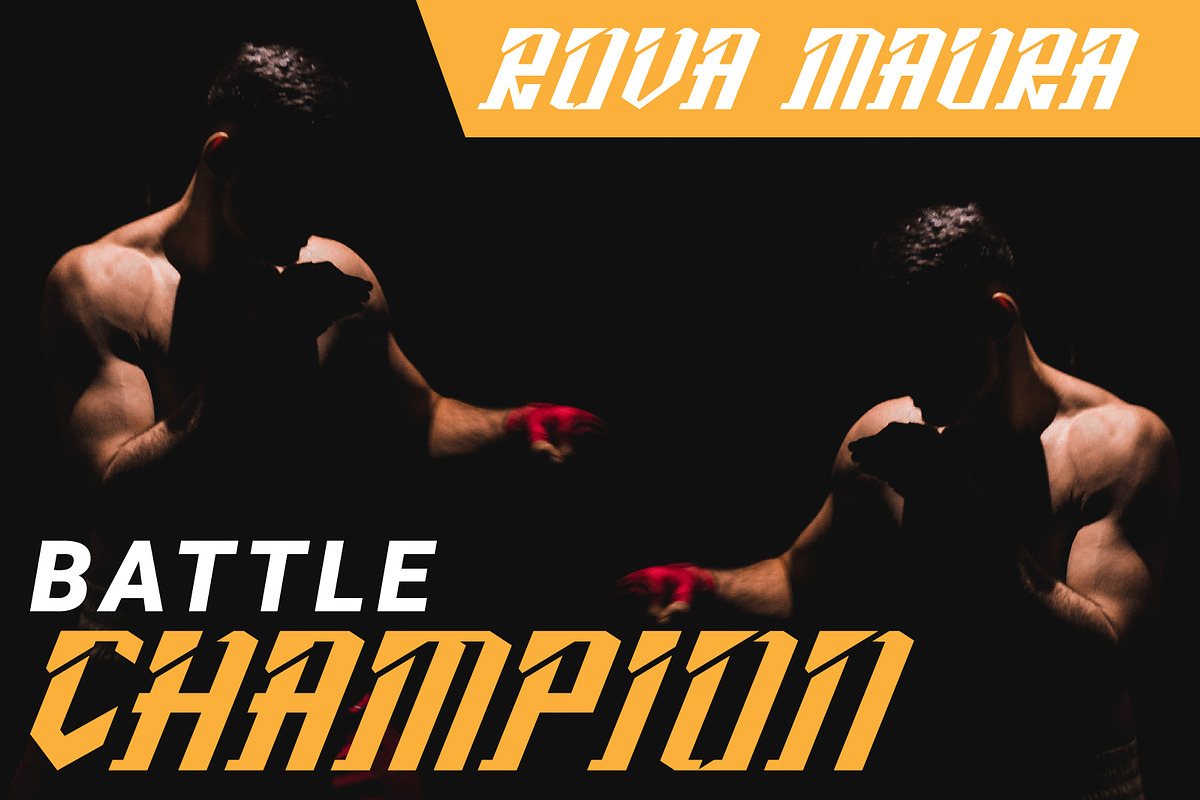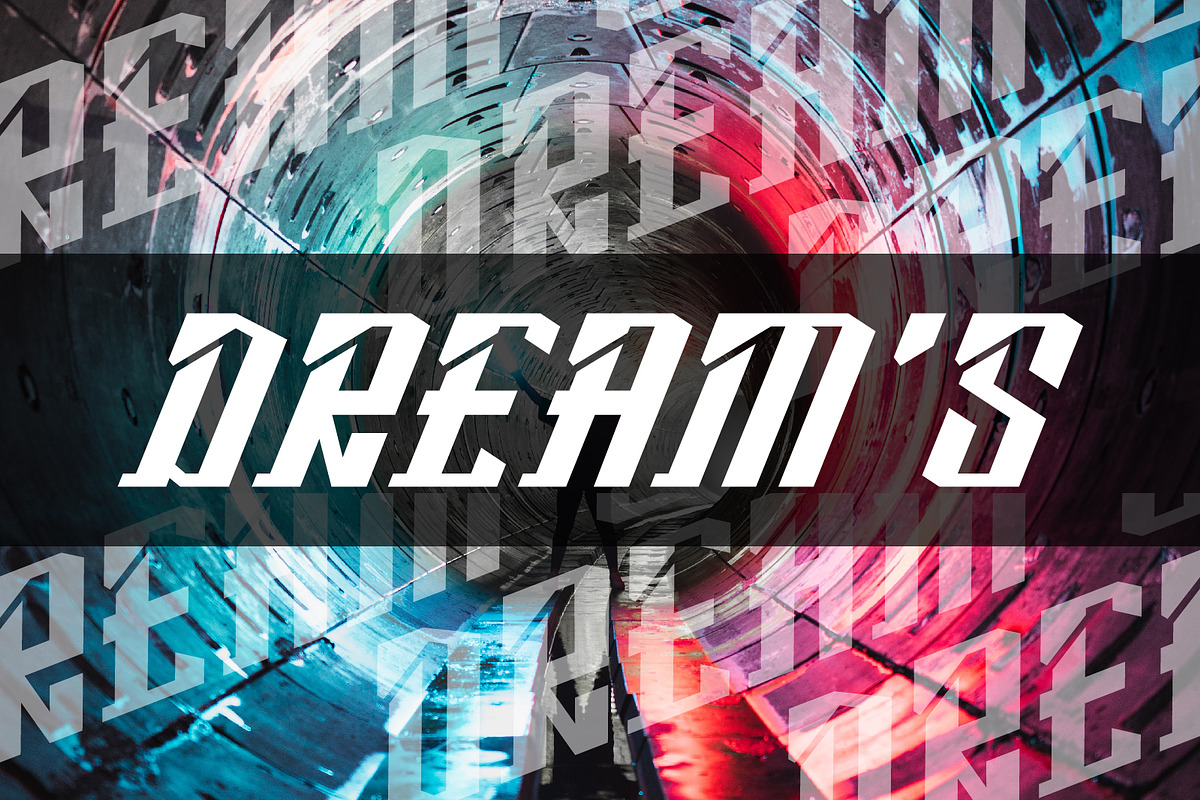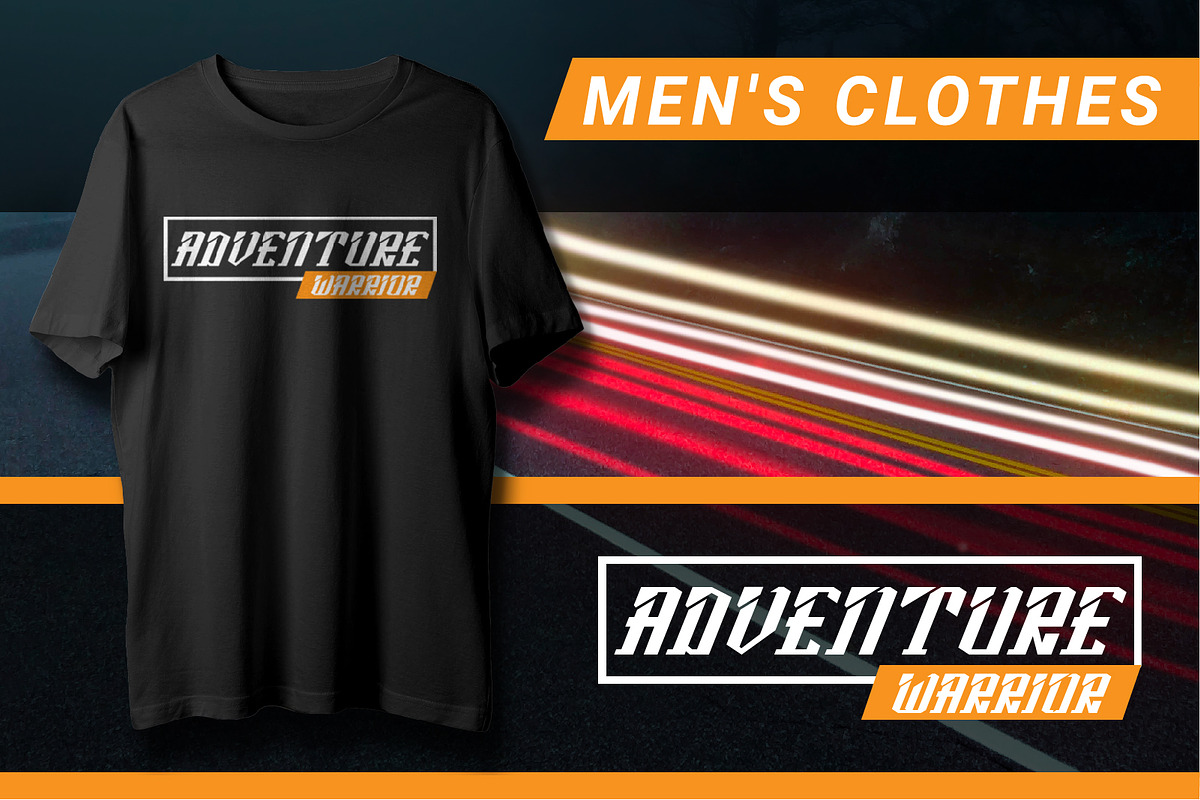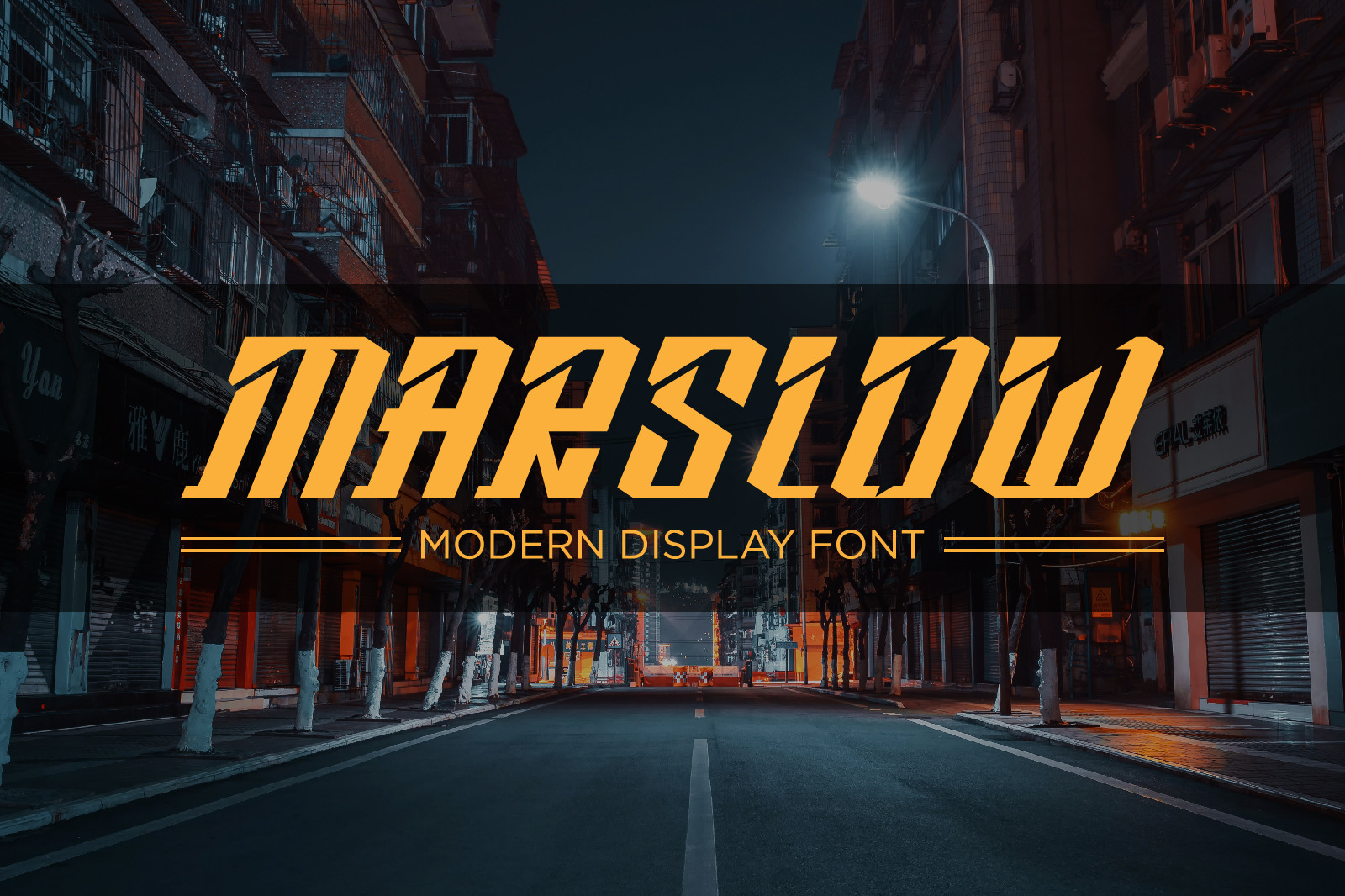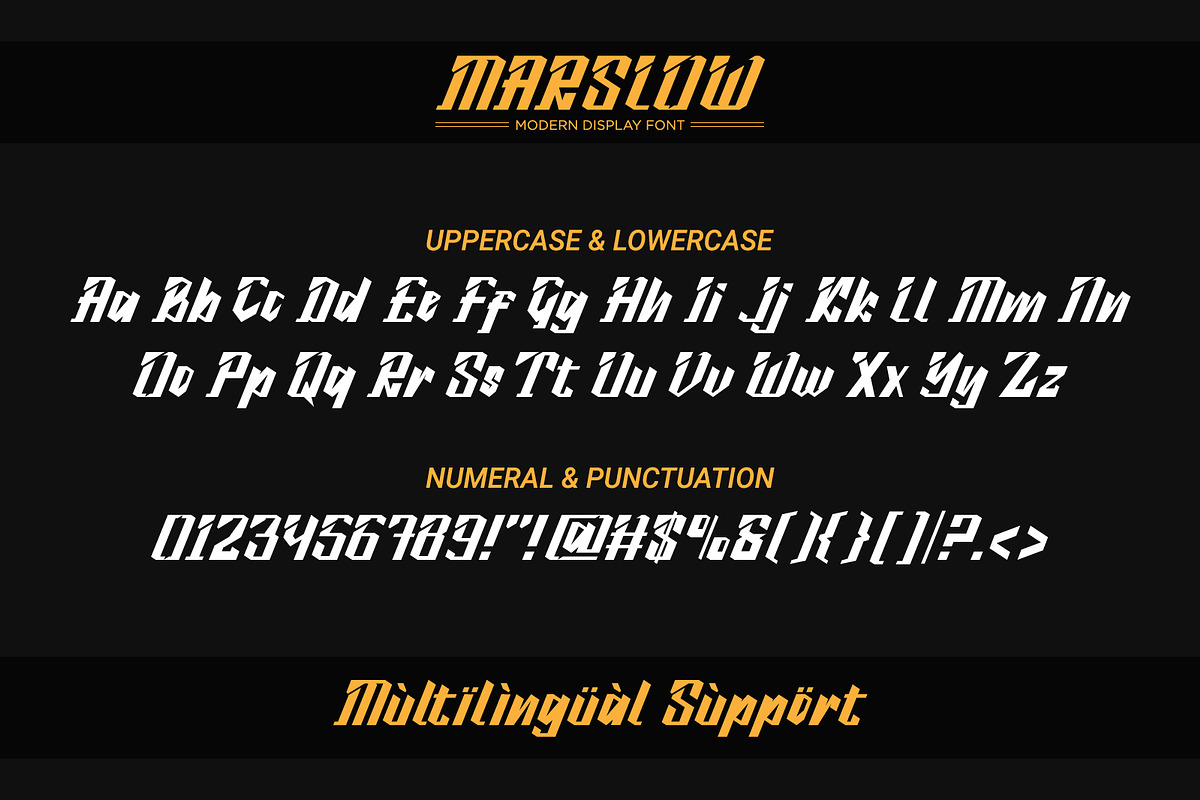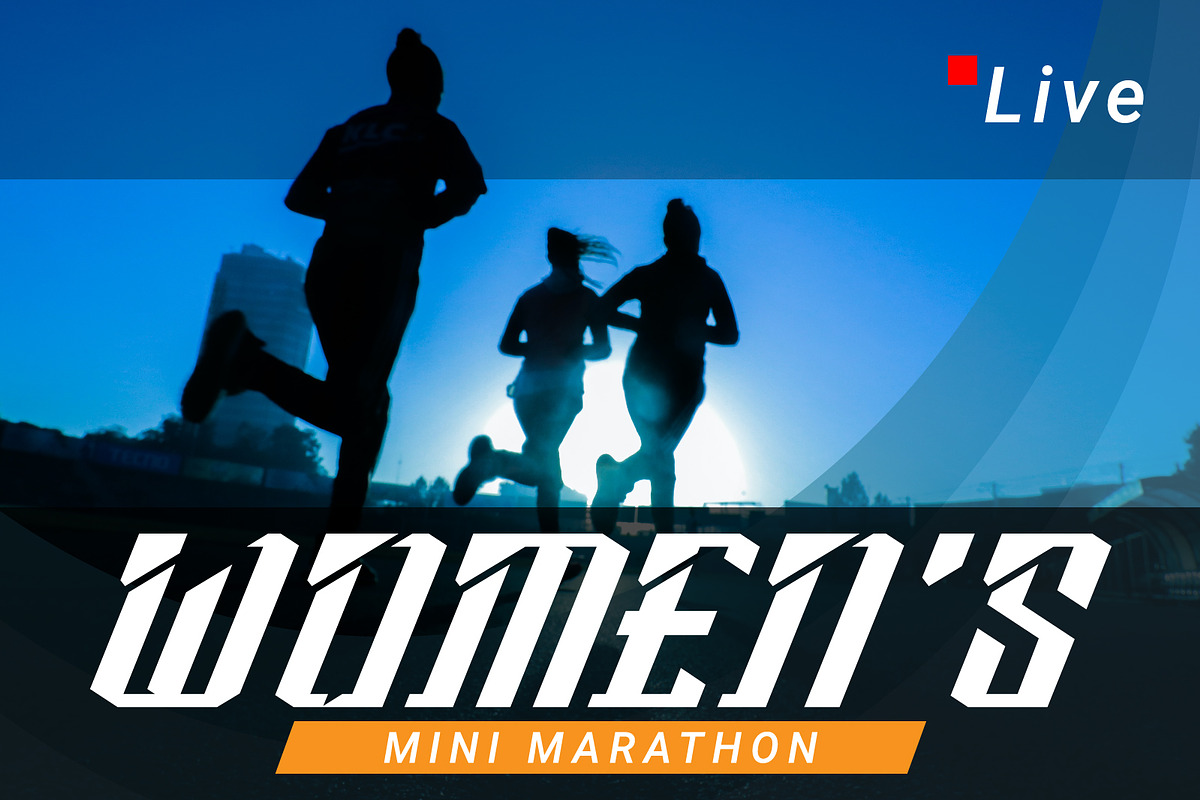
Marslow | Modern Display Font
Marslow is a modern and bold looking display font. Whether you use it for designs related to speed, power or sports, it is a wonderful choice.